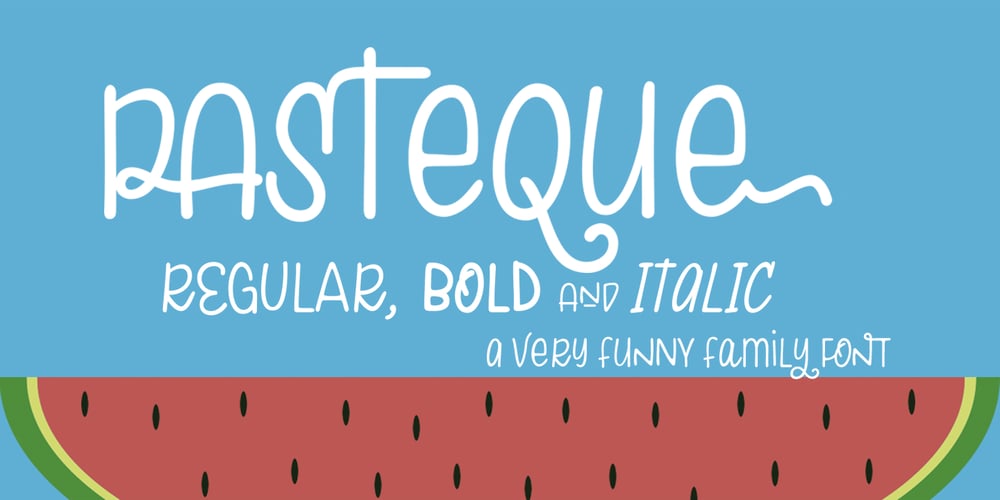
Pasteque Font Family was designed by Carine de Wandeleer and published by Eurotypo. Pasteque contains 3 styles and family package options. Pasteque is a display script based on a casual typography handmade with marker. Lovable, fun and youthful, this is the best way to describe Pasteque. So playful that allows you to mix both indistinctly uppercase and lowercase letters, to create a truly hand lettered feel. As with all of my fonts, you’ll find some quirky little twists to make your type projects interesting. Pasteque has a total of 692 characters, in OpenType format, such as Stylistics and Contextual Alternatives, Swashes, Ligatures, and stylistics sets which will allow you to create truly original and unique texts. To this, we add a support of central European language to adjust your design. All OpenType features can be accessed through OpenType compatible applications or the character map to view and copy any of the additional characters you want to paste into your favorite text editor / application. With virtually endless ways to personalize its use, Pasteque helps you to design invitations, greeting cards, logos, fashion magazines, food, packaging and menus, toys and products for children, book covers, apps and whatever your imagination! Dare to use it! Your designs will have a lot of freshness and spontaneity!